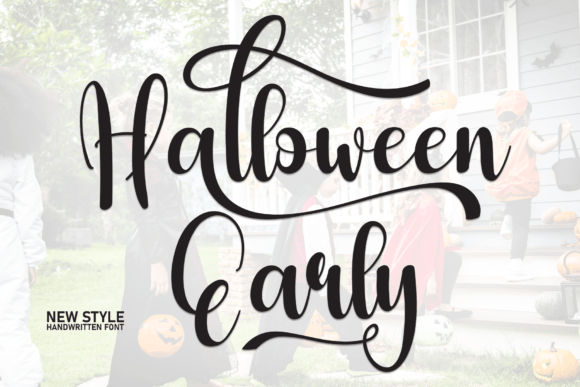
Journey into the enchanting realm of Halloween Early Font, a captivating script font family that will cast a spell on your designs. Its graceful curves and playful charm evoke a sense of wonder and whimsy, making it the perfect choice for adding a touch of magic to your creative projects.
Unleash your imagination and let Halloween Early Font transport you to a world of enchantment. Its elegant swashes and flowing lines dance across the page, creating a visual symphony that captures the essence of celebration and joy. With its inherent versatility, this font family seamlessly adapts to a wide range of design styles, from whimsical invitations to enchanting logos, making it a must-have for any designer seeking to create captivating visuals.
Immerse yourself in the artistry of Halloween Early Font and discover a world of creative possibilities. Its meticulously crafted characters exude a timeless charm that will elevate your designs to new heights. Whether you're a seasoned graphic designer or just starting your creative journey, this font family will effortlessly enhance your projects with its undeniable beauty and elegance.
Indulge in the delight of Halloween Early Font and experience the magic it brings to your designs. Its enchanting aura will captivate your audience, leaving them spellbound by the sheer brilliance of your creations. Embrace the power of this extraordinary font family and unlock a world of boundless creativity, where imagination knows no limits.